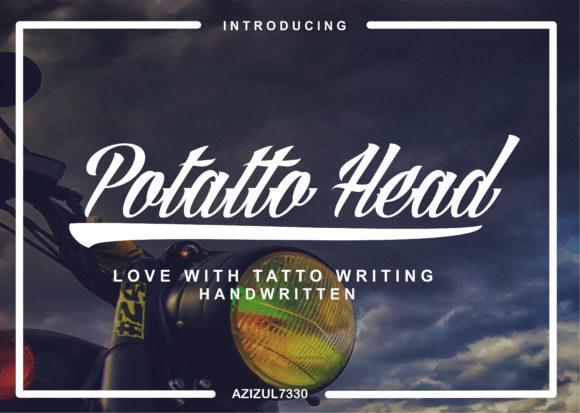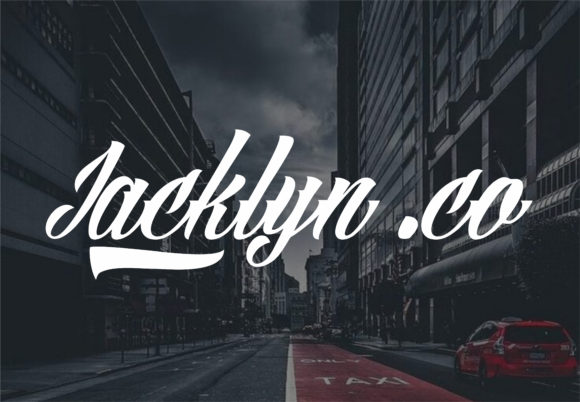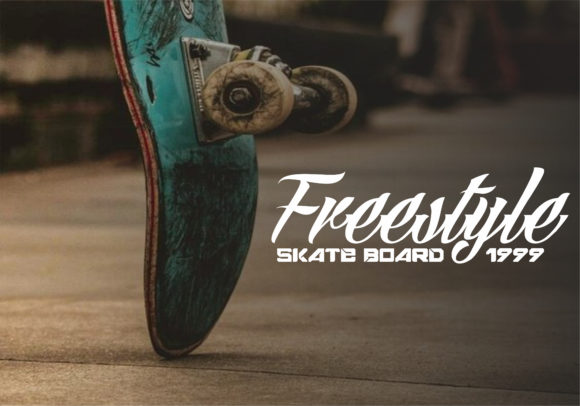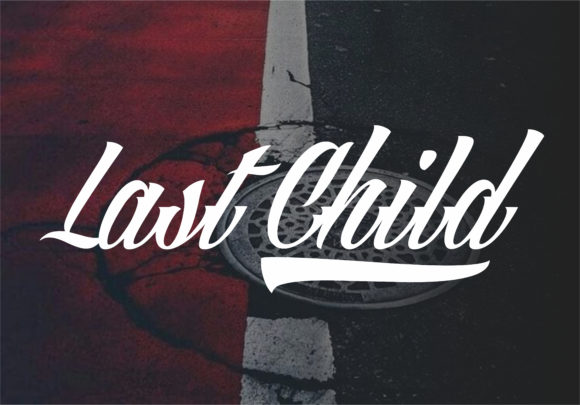
Potatto Head Font
About Potatto Head Font
Potatto Head is a striking and bold handwritten font with an incredible feel. It will turn any design project into an eye catcher!